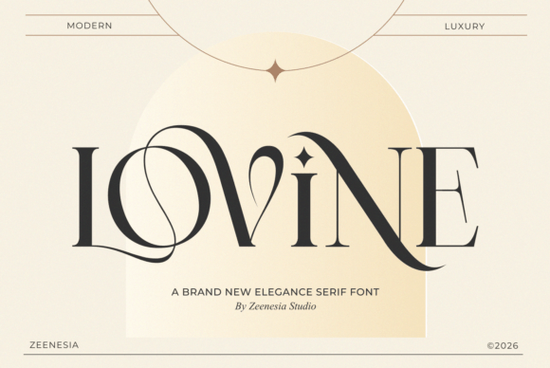
If you've been searching for a typeface that feels polished without being stiff, the Lovine font might be exactly what your next project needs. It's a modern luxury serif with graceful curves, high-contrast strokes, and elegant swashes that work beautifully for branding, wedding stationery, packaging, and editorial design. Whether you're a designer building a visual identity or a small business owner creating your own marketing materials, this font brings a refined look that's easy to work with.
What Makes Lovine Different from Other Serif Fonts?
Plenty of serif fonts look nice on screen but fall flat in real-world use. Lovine avoids that problem by pairing classic letter proportions with contemporary detailing. The high-contrast thick-to-thin strokes give each character a sense of movement, while the flowing swashes add personality without going overboard.
It also includes stylistic alternates and artistic ligatures, which means you can swap out letters for different versions to get the exact tone you want. That kind of flexibility matters when you're working on logos, mastheads, or any layout where type needs to feel intentional and unique.
Compared to fonts like Vintage Market, which leans into a retro aesthetic, Lovine keeps things clean and modern. It doesn't try to look old or distressed it simply looks expensive, in the best sense of the word.
Who Is This Font Designed For?
Lovine is a strong choice for anyone working in visual design, but it shines brightest in specific use cases:
- Fashion and lifestyle brands that need a typeface to feel upscale and editorial
- Wedding invitation designers looking for elegant script-style alternatives with better readability
- Print-on-demand sellers creating premium-looking products like tote bags, mugs, or wall art
- Small businesses building their own logos, packaging, or social media graphics
- Crafters and hobbyists who want a beautiful font for personal projects like journals, greeting cards, or scrapbooking
If you've worked with fonts like Refined Society before and appreciated the balance between formality and charm, Lovine offers a similar energy with its own distinct character.
Where Does Lovine Work Best?
This font was made for projects where typography is the focal point, not just a supporting element. Here are some practical applications:
- Logo design The alternates and ligatures let you create custom-looking wordmarks without drawing every letter from scratch.
- Wedding stationery Invitations, menus, programs, and table cards all benefit from its soft, romantic letterforms.
- Packaging and labels Think perfume boxes, candle labels, skincare products, or specialty food packaging.
- Editorial layouts Magazine headers, blog graphics, and lookbook titles look great set in Lovine.
- Social media content Quote posts, sale announcements, and product features get an instant style upgrade.
For projects that need a slightly softer or more romantic feel, The Paloma is another option worth comparing. But if you want something that reads as both modern and luxurious, Lovine is hard to beat.
- Stylistic alternates for key characters
- Ligatures that connect letters in natural, flowing ways
- Swash characters for decorative flourishes
These features make it easy to customize your text without needing advanced typographic skills. Just install the font, open your design tool, and start experimenting with the alternates.
How Does It Compare to Other Luxury Serifs?
The serif font market is crowded, so here's how Lovine stacks up against similar options:
- Roses Garden More decorative and botanical in feel. Better suited for floral-themed designs but less versatile for general branding.
- Refined Society A closer match stylistically, but Lovine's swashes and ligatures give it more range for creative projects.
- Vintage Market Focuses on a retro or nostalgic look, while Lovine stays firmly in the modern luxury space.
Each of these fonts has its place, but Lovine stands out for its balance of elegance and usability. It doesn't require a lot of design experience to look good the letterforms do most of the work for you.